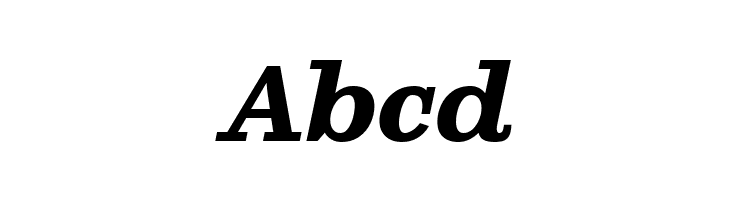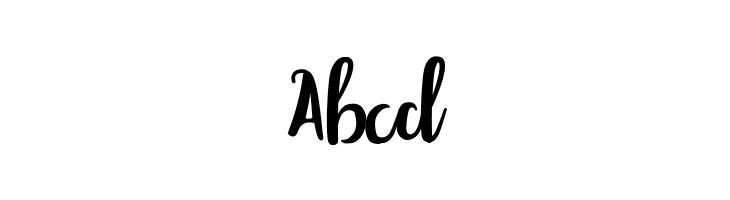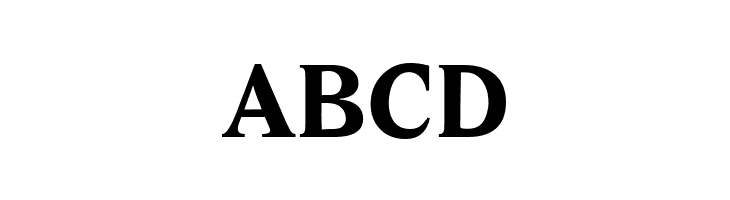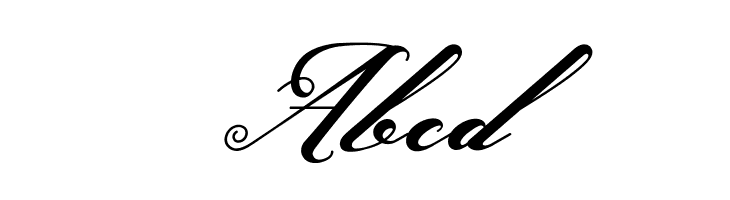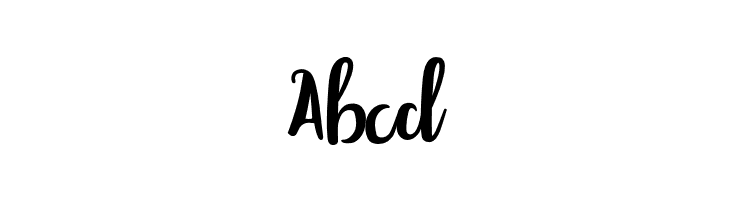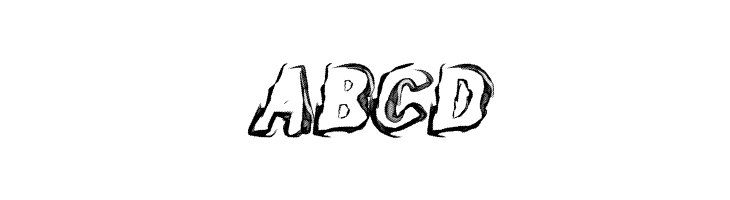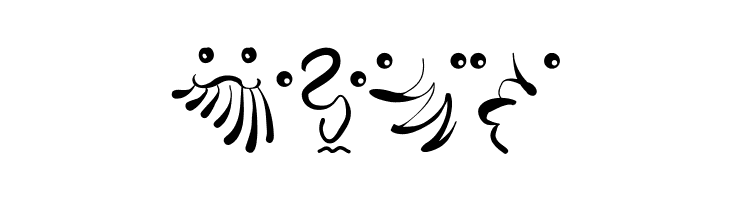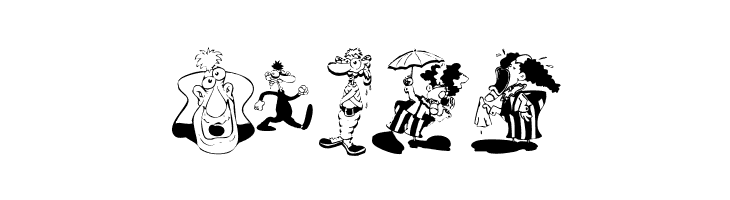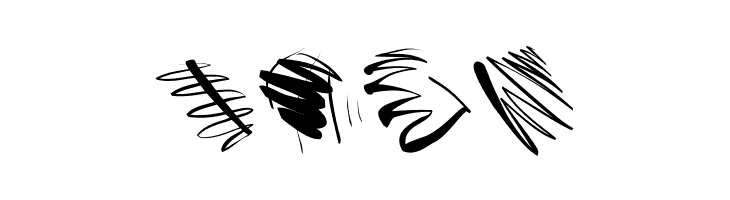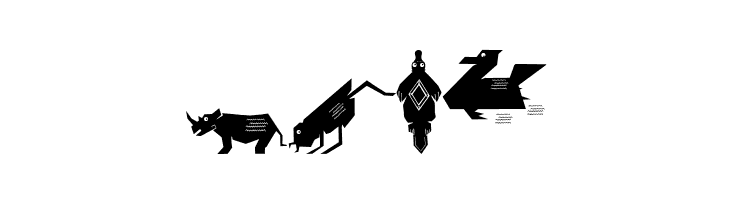
• GershwinRegular
A modern serif font with elegant, slightly condensed letterforms.
• Gestalten
A cartoonish, illustrative display font made from character drawings.
• Gestures
Expressive, abstract font with gestural, sketch-like strokes.
• GesturesMK
Expressive, abstract font with playful, doodle-like characters.
• Get Burnt
• Getho Bold
• Getho Bold Italic
• Getier
Pictogram-based decorative font with ancient and archaeological motifs.
• GetierAnimalish
A decorative animal-themed dingbat font with playful illustrations.
• GetierTwo
Animal silhouette display font with bold, geometric shapes.
• Getolyfe Free For Personal
A bold, playful script font with a handwritten style.
• Getolyfe Free For Personal
A bold, playful script font with a handwritten feel.
• GF Matilda bold
A bold, playful font with thick, rounded strokes and a hand-drawn feel.
• GF_SnowDeco Free
• GFS Neohellenic Bold
A bold, modern typeface with geometric shapes and consistent stroke width.
• GFS Neohellenic Bold Italic
• GFSDidot-Bold
A classic serif font with high contrast and elegant design.
• GFSDidot-BoldItalic
An elegant, high-contrast serif font with italic styling.
• GFSDidot-Italic
An elegant serif font with a classic italic style and high contrast strokes.
• GFSNeohellenic-Bold
A bold, modern sans-serif font with clean lines and strong visual impact.
• GFSNeohellenic-BoldItalic
A bold italic font with a modern and elegant style, perfect for impactful designs.
• GFSNeohellenic-Italic
A clean and elegant italic font with smooth curves and a modern aesthetic.
• GFSNeohellenic-Regular
A modern sans-serif typeface with geometric influences and balanced proportions.